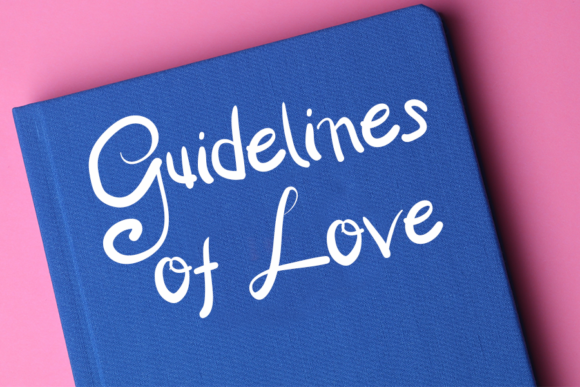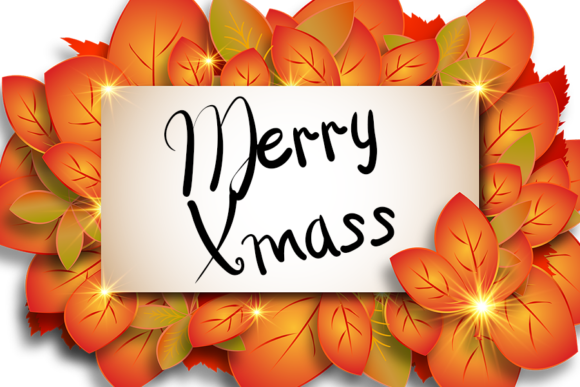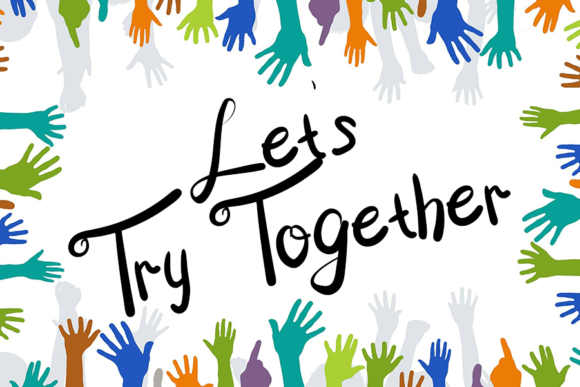
About Cristsmas Ready Font
Cristsmas Ready is a delicate and elegant handwritten font. Its distinct and well rounded letters make this font a masterpiece. Fall in love with its incredibly versatile style and use it to create spectacular designs!